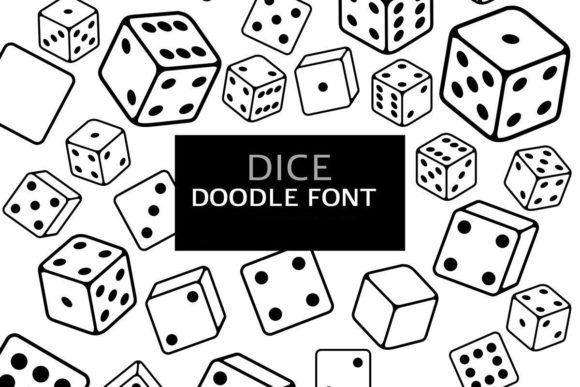
**Introducing Dice Doodle Font: The Playful Dingbat Font That Sparks Joy In Every Creation**
In a world where creativity knows no bounds, let Dice Doodle Font ignite your imagination and transform your designs into whimsical wonders. Step into a realm of boundless possibilities, where every letter and symbol dances with playful energy, inviting you to express your heart's desires. Created by the talented digitalplannerland, Dice Doodle Font captures the essence of fun and cuteness, making it the perfect choice for a diverse range of projects that yearn for a touch of enchantment.
With its versatility, Dice Doodle Font effortlessly adapts to your creative vision, whether you're crafting handmade cards, designing planners and diaries, or embarking on any project that calls for a dash of magic. Its charming dingbat style breathes life into activity books, adding an element of surprise and delight to every page. Unleash your imagination and let Dice Doodle Font guide you on an artistic adventure like no other.
Transport yourself to a world where fonts speak louder than words. Dice Doodle Font captivates your audience with its expressive and engaging personality. Its playful nature adds a touch of whimsy to presentations, capturing the attention of every viewer. Let your ideas take center stage as Dice Doodle Font amplifies your message with its captivating charm.
Discover the magic of Dice Doodle Font today, and embark on a creative journey that knows no limits. Let your imagination soar as you create designs that ignite joy and leave a lasting impression. Embrace the beauty of self-expression and let Dice Doodle Font be your trusted companion in every artistic endeavor.